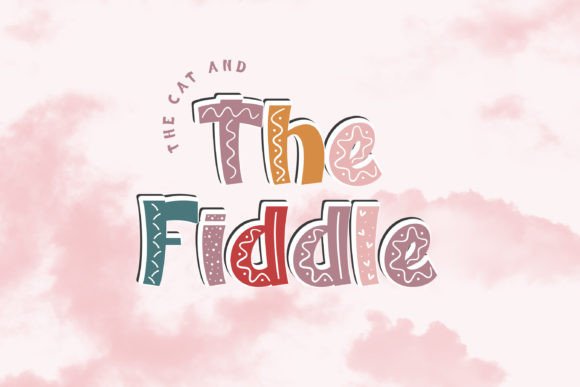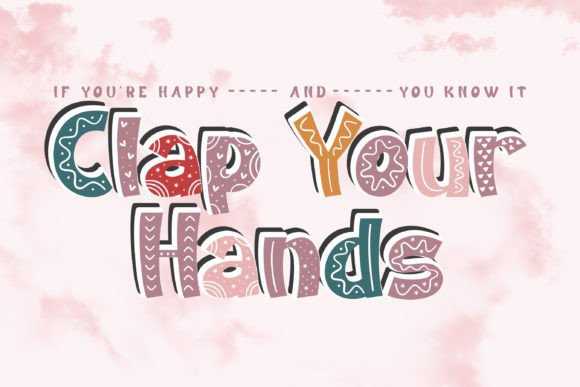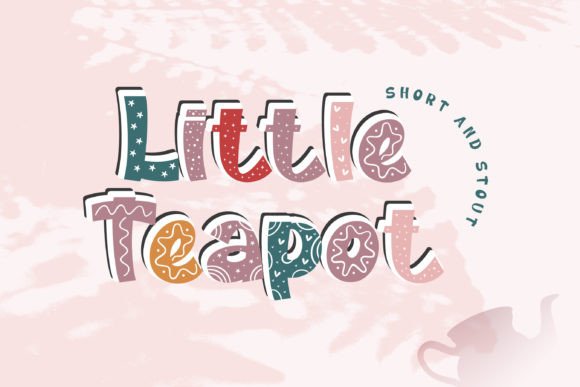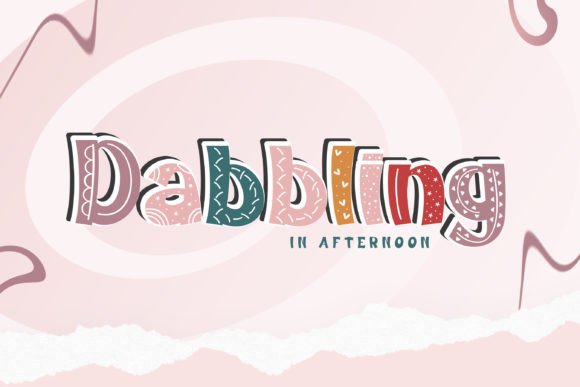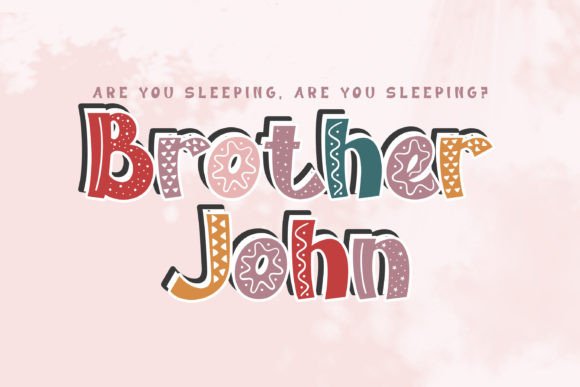
Introducing Canelo: The Playful Handwritten Font That Brings Joy to Your Designs
I’ll never forget the time I was working on a project for a children’s birthday party invitation. I had all the design elements ready, but I just couldn’t find the right font to capture the playful and fun vibe I was going for. That’s when I stumbled upon Canelo, a delightful handwritten font that instantly brought my design to life. In this article, I’ll share my experience with Canelo, its features, and how you can make the most of it in your designs.
A Personal Review of Canelo
As a designer, I’m always on the lookout for fonts that can add a personal touch to my projects. Here’s what I love about Canelo:
- ✨ Playful and fun: Canelo is a playful handwritten font that brings an element of fun to every project.
- ✅ Versatile: It contains a regular style and a fun style, which is equipped with patterns in fun-style fonts.
- 💫 Whimsical elements: Canelo seamlessly combines a regular style with whimsical elements that are sure to infuse your creations with charm and character.
While Canelo is an amazing font, there are a few quirks to be aware of:
- ⚠️ Limited use cases: Canelo is best suited for designs that require a playful and fun tone. It may not be the best choice for more formal or professional projects.
- 🤔 Glyph limitations: While Canelo has a wide range of glyphs, it may not have every special character or symbol you need.
The Backstory of Canelo
Canelo was designed by a team of typographers who wanted to create a font that would bring joy and playfulness to designs. Inspired by the beauty of handwritten scripts, they created a font that combines a regular style with whimsical elements. The result is a font that’s both fun and elegant, perfect for designs that require a touch of personality.
| What is Canelo? | Canelo is a playful handwritten font that brings an element of fun to every project. |
| Is Canelo suitable for body text? | While Canelo is a beautiful font, it’s best suited for headlines and titles. It’s not recommended for body text due to its playful and decorative nature. |